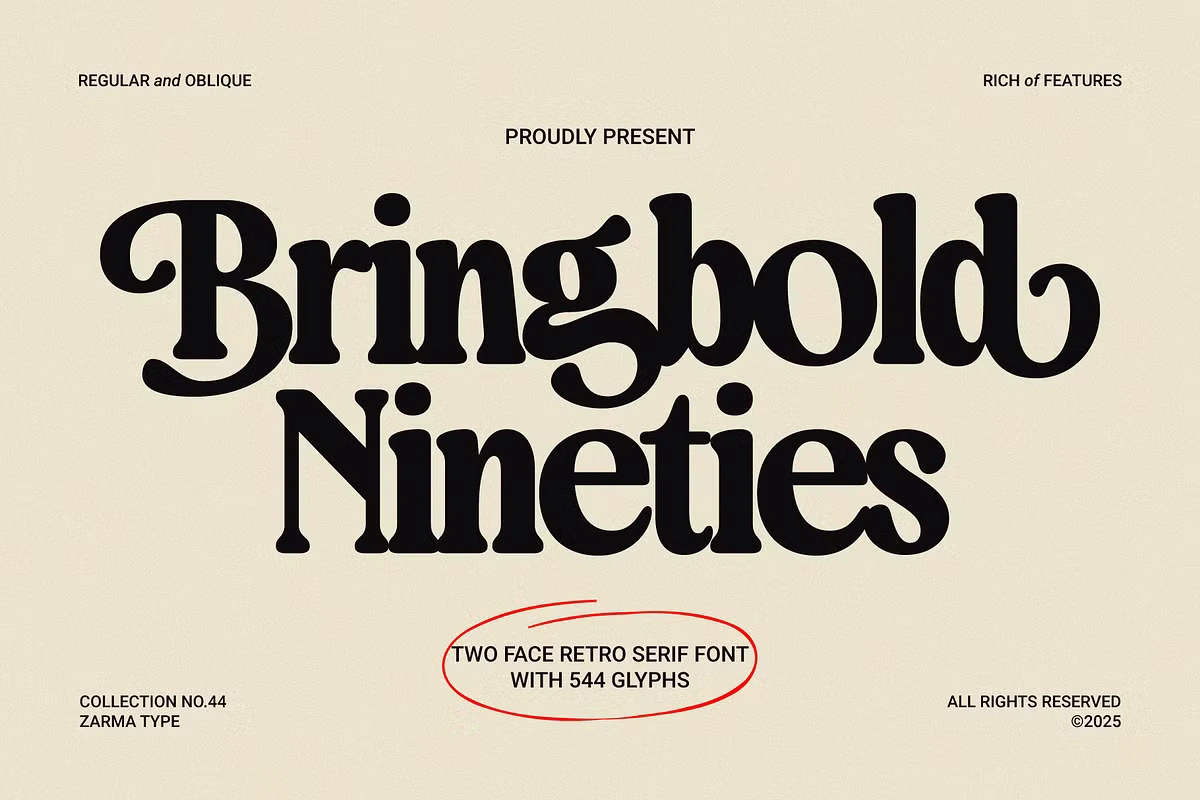
Bringbold Nineties is a classic serif font that masterfully blends 90s retro vibes with a modern edge. Its bold, crisp serif details strike the perfect balance between nostalgic charm and contemporary readability. Packed with OpenType features like stylistic alternates, ligatures, and swashes, this font offers endless creative potential while staying true to its retro roots.
Meticulously designed, each character exudes personality while maintaining cohesive harmony. Available in Regular and Slanted styles, Bringbold Nineties provides designers with the flexibility to craft striking, dynamic typography. Its extensive OpenType features, including contextual alternates and custom ligatures, make it ideal for creating standout designs with a timeless, classic aesthetic.
Bringbold Nineties Serif Font